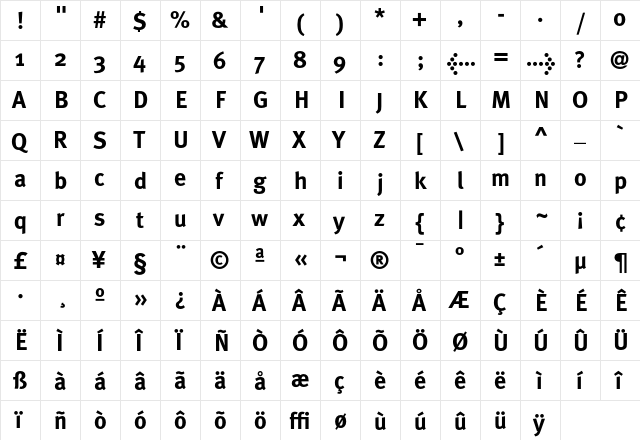
MetaPlus Bold
Design Context for MetaPlus Typeface
MetaPlus offers clean, dependable letterforms without strong stylistic allegiance, making it a practical choice for designers who need flexibility. Its bold stroke weight gives it real presence on the page.